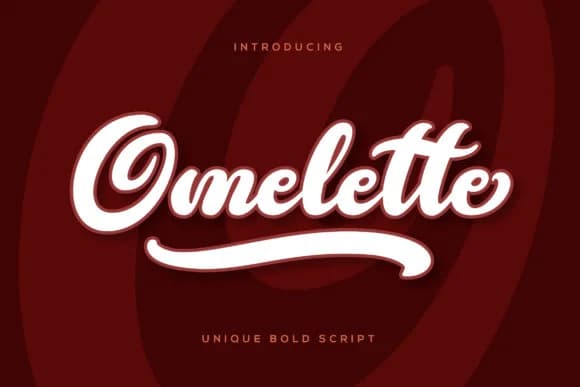
Omelette Script by Grezline Studio flows with a relaxed, hand-drawn energy that feels natural without trying too hard. The letterforms have an organic bounce to them, with naturally tapered strokes that give the font its soft, approachable character. This is a handwritten script that looks genuinely written, not mass-produced or artificially roughed up.
The swash variations let you add decorative flourishes where they'll matter most. Consider it for wedding invitation suites where personal touches anchor the whole aesthetic, cosmetics and skincare label designs that need warmth, craft event posters that celebrate DIY spirit, or boutique restaurant menus that want to feel homemade. There's enough personality here to anchor a design entirely on its own, but the letterforms also pair gracefully with simpler typefaces when your layout calls for a supporting voice rather than a lead. The playful angle and flowing baseline introduce natural rhythm without demanding overly complex compositions to read as finished and cohesive.
Omelette Font is a script font that shines as a display or heading face. Pair it with a clean sans-serif or serif font for body text β the contrast creates a clear hierarchy while the two styles stay balanced and easy to read.
Omelette Font